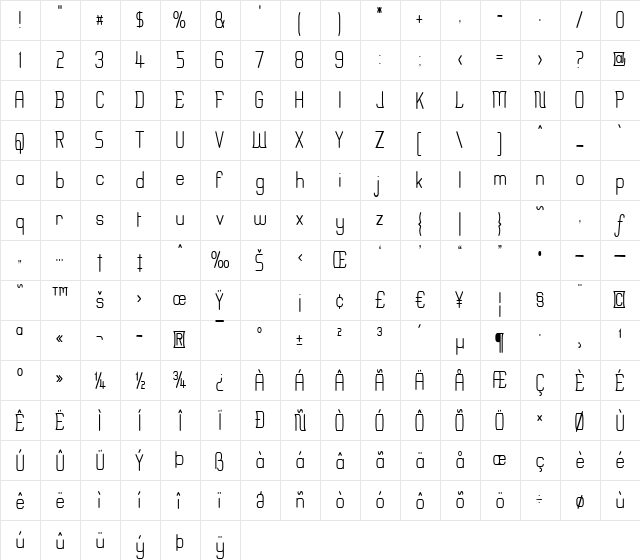
Erinal Narrow Regular
| Designer | Graham Meade |
Design Context for Erinal Narrow Typeface
Erinal Narrow offers clean, dependable letterforms without strong stylistic allegiance, making it a practical choice for designers who need flexibility. Its narrow stance lets it pack a punch even in space-constrained designs.